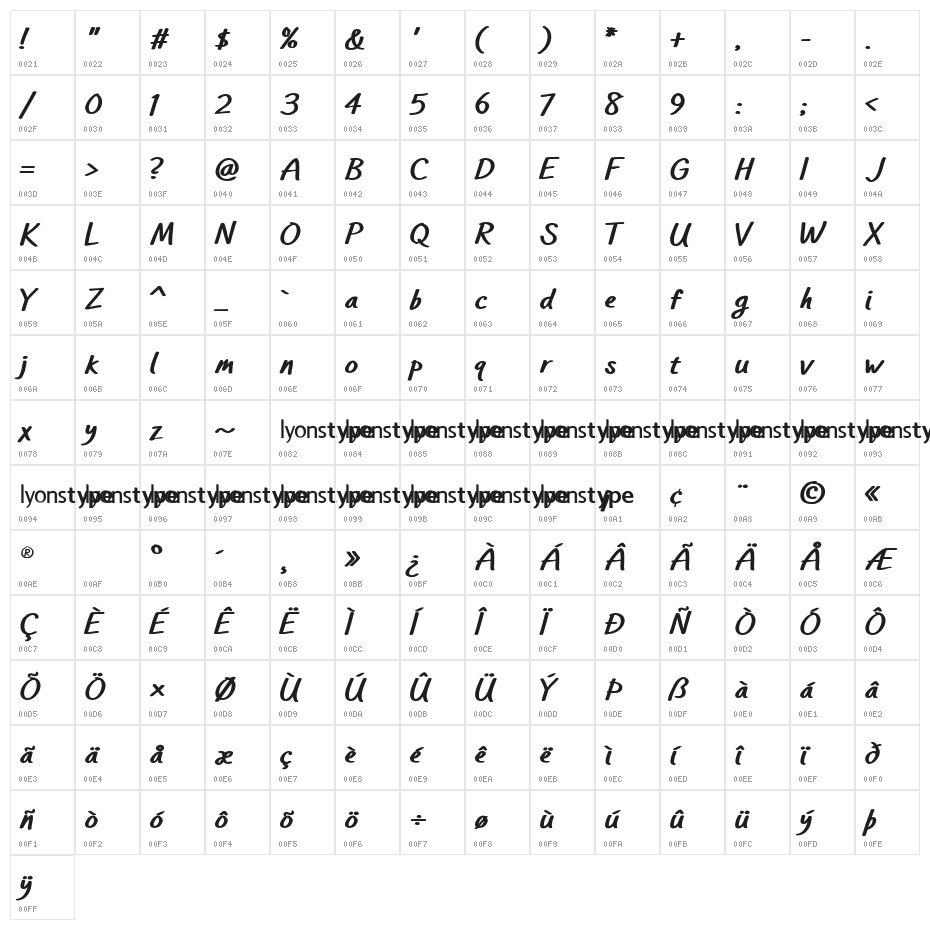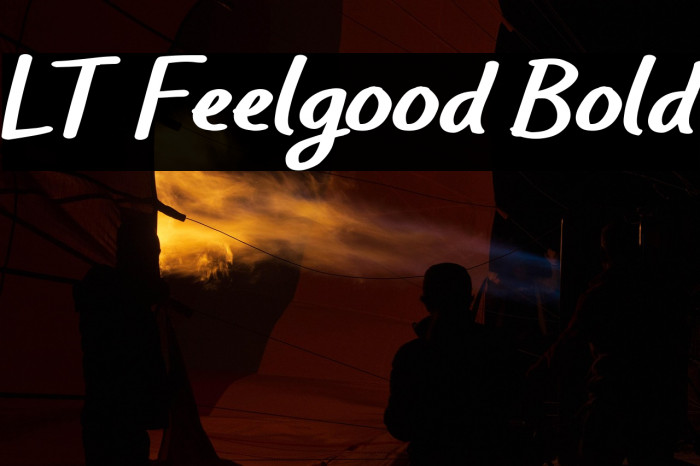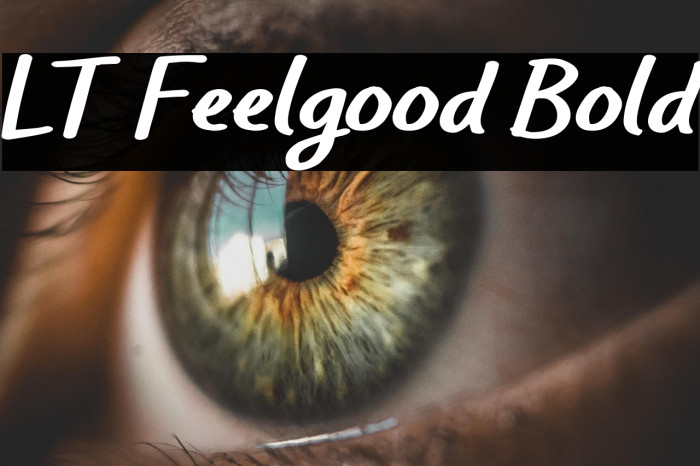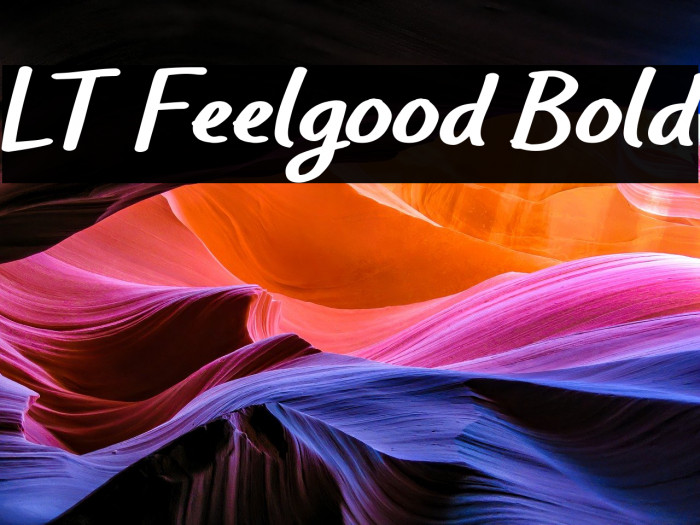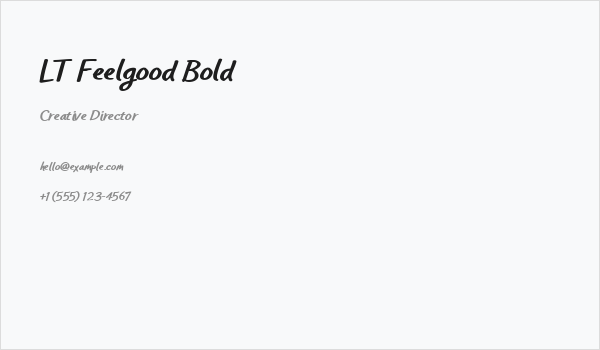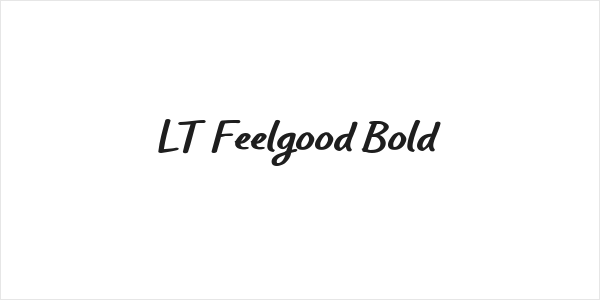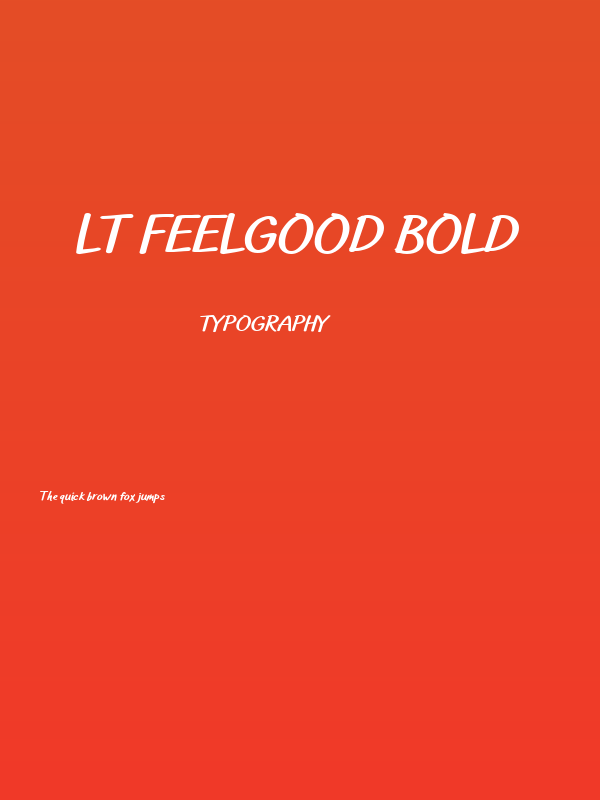
LT Feelgood Bold Font
LT Feelgood Bold Description
This font features a bold and flowing script style, characterized by its smooth, cursive strokes and dynamic movement. The uppercase letters are slightly slanted, giving a sense of motion and elegance. The lowercase letters maintain a consistent flow, with rounded edges and a playful yet sophisticated appearance. Numbers are designed with the same fluidity, ensuring a cohesive look across all characters. Special characters are integrated seamlessly, maintaining the font's overall aesthetic. This font exudes a sense of creativity and flair, making it ideal for projects that require a touch of personality and style.